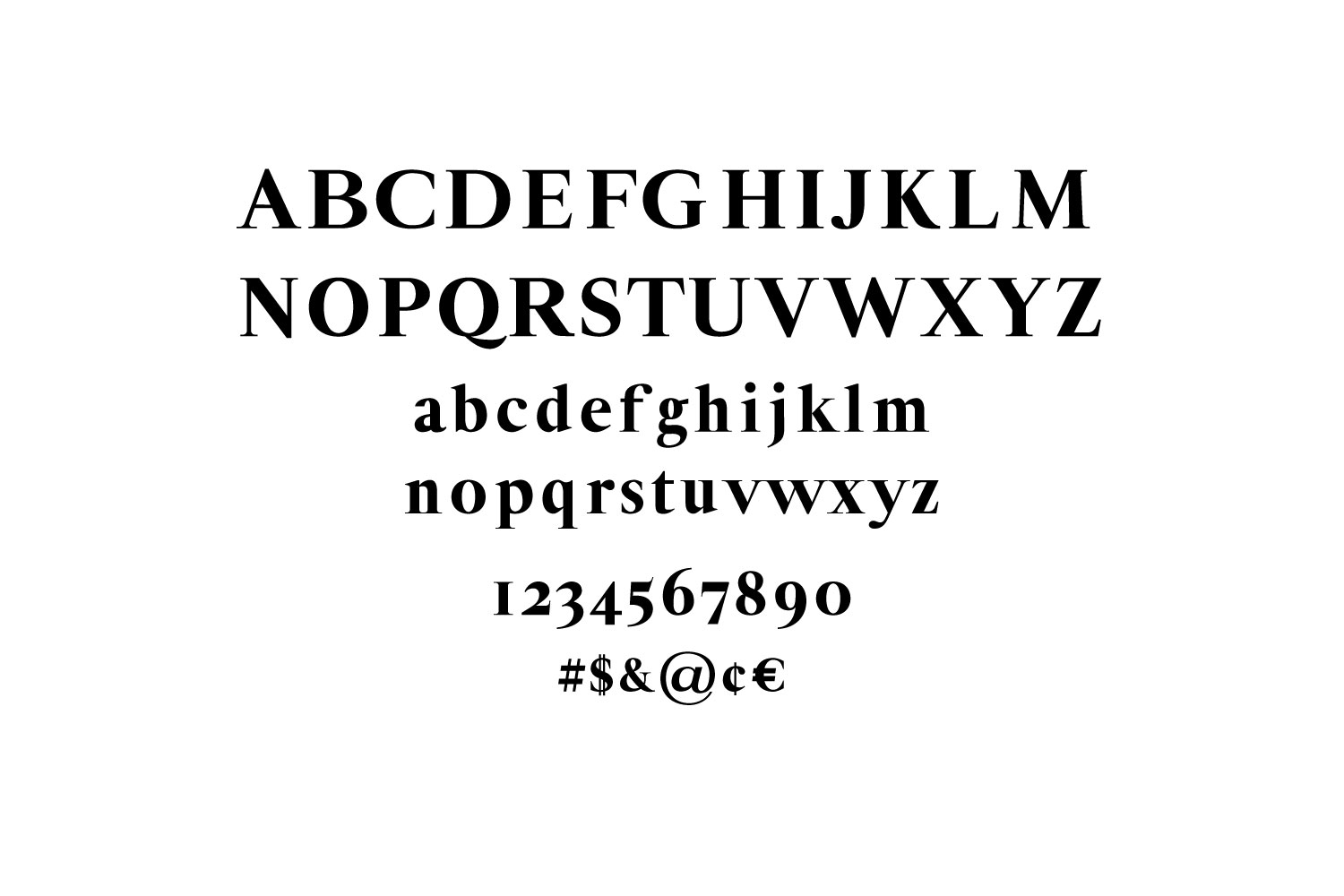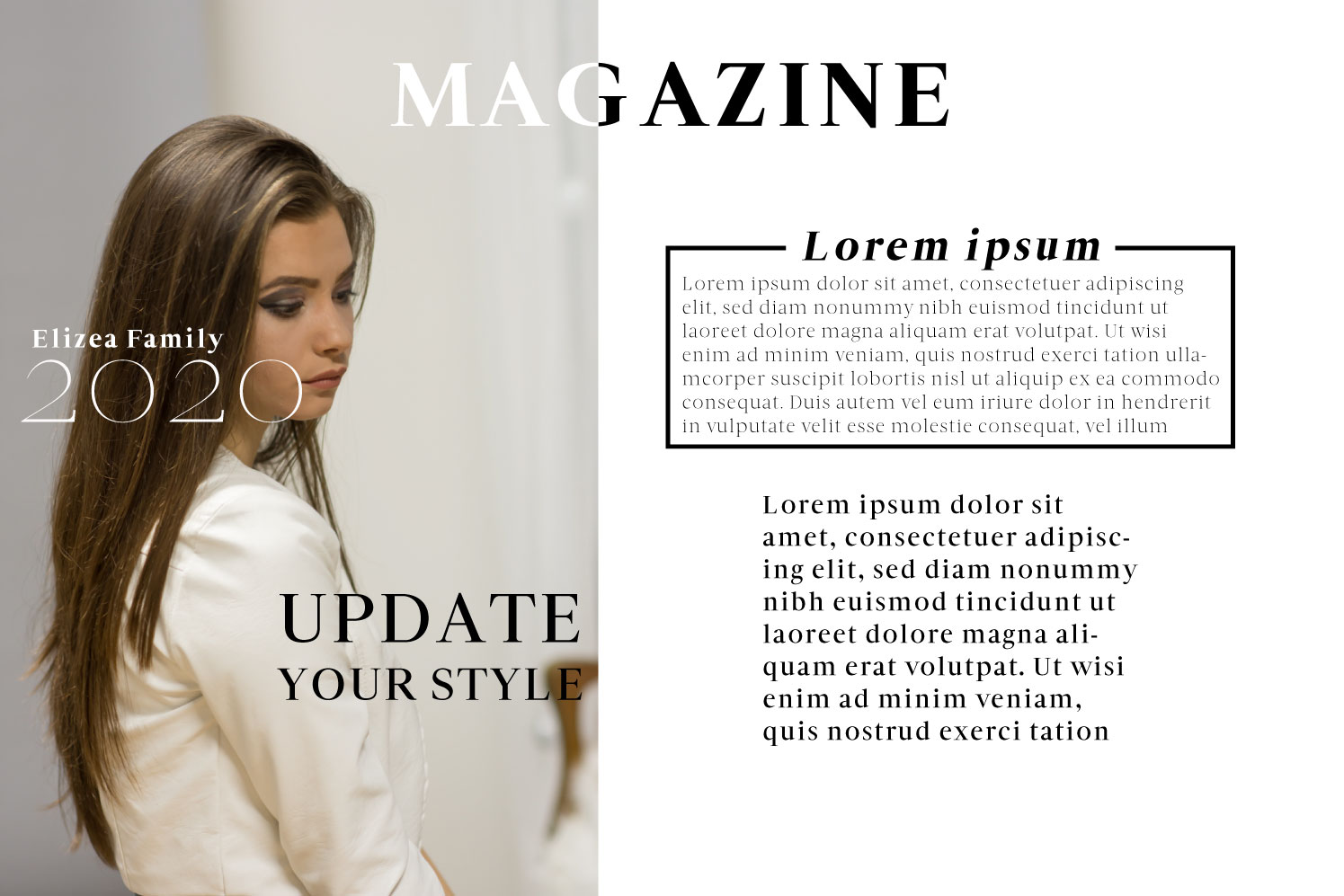
The Elizea Font: A Modern Serif for Creative Minds
Have you ever been in the middle of a design project, pouring your heart and soul into every detail, only to get stuck on one thing: the font? I recall a particularly frustrating experience with a client who wanted a clean, modern look for their branding, but every font I suggested seemed either too bland or too over-the-top. That’s when I discovered Elizea, a game-changing serif font that has since become a staple in my design toolkit.
What is Elizea Font?
Elizea is a clean modern serif font that comes in 14 weights and variations, making it incredibly versatile for a wide range of design projects. Its high legibility makes it suitable for both big titles and body text, allowing designers to maintain consistency across different elements of a design.
An Honest Review of Elizea
What I Love About Elizea ✨
- ✅ Versatility: With 14 weights and variations, Elizea can be used for a multitude of design projects, from elegant headings to readable body text.
- ✅ Legibility: The font’s clean and modern design ensures that it remains clear and readable, even at smaller sizes.
- ✅ Aesthetic Appeal: Elizea brings a touch of sophistication and elegance to any design, making it perfect for projects that require a professional look.
While Elizea is an excellent font, it’s not without its quirks. For instance, some of the heavier weights can make the font look slightly less refined when used for body text. Additionally, the font’s modern aesthetic might not be the best fit for projects that require a more traditional or vintage look.
- ⚠️ Weight Limitations: Some of the heavier weights may not be ideal for body text, potentially affecting readability.
- ⚠️ Style Limitations: The modern aesthetic of Elizea might not suit projects that require a more traditional or vintage feel.
- Take advantage of OpenType features, glyphs, and stylistic alternates to add depth and variety to your text.
The Backstory of Elizea
Elizea was designed with the goal of creating a versatile and modern serif font that could meet the needs of contemporary design. While the specific details about the designer are not widely known, it’s clear that the font was crafted with attention to detail and a deep understanding of typography.
Q: What makes Elizea suitable for both titles and body text?
A: Elizea’s clean design and high legibility make it an excellent choice for both titles and body text, allowing for consistency across different design elements.
Q: Does Elizea support OpenType features?
A: Yes, Elizea supports OpenType features, including glyphs and stylistic alternates, which can be accessed in compatible software like Adobe Photoshop and Illustrator.